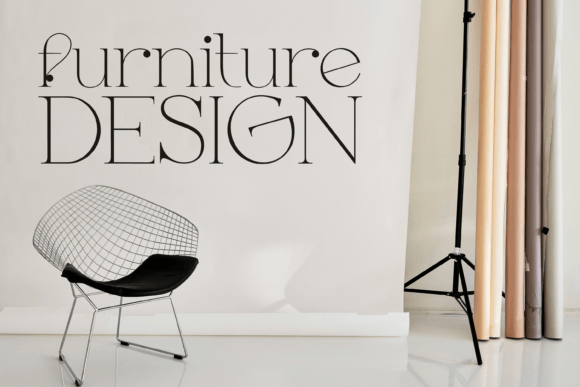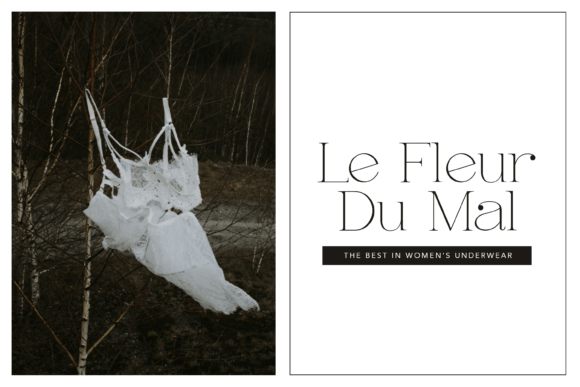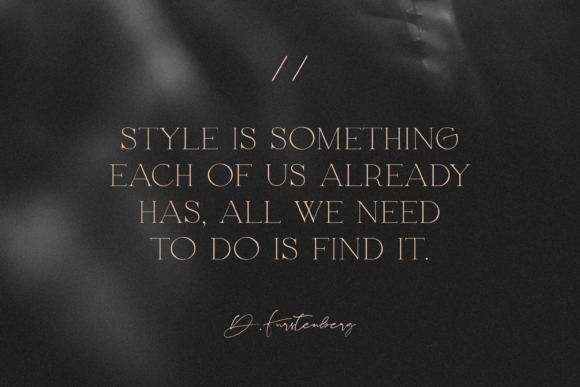
Introduction to Feona Serif Font
Imagine you’re brainstorming ideas for a high-end wedding invitation, and you stumble upon the perfect font to capture the essence of the occasion. For designers, finding that perfect font can make all the difference in a creative project. The Feona Serif Font is one such treasure that brings a touch of elegance and sophistication to any design.
With its soft, feminine style and modern feel, the Feona Serif Font is perfect for luxury branding, logos, and even free download templates. Its versatility and high-quality design make it a valuable resource for designers looking to elevate their work. Whether you’re working on a design project that requires a transparent background or need a design resource that exudes style and sophistication, the Feona Serif Font is sure to deliver.
Key Features of Feona Serif Font
- High-quality, professional font suitable for various creative projects, including logos, brochures, and business cards.
- Designed with a unique, elegant aesthetic, making it perfect for projects requiring a sophisticated touch.
Honest Review: Feona Serif Font
I recently stumbled upon the Feona Serif Font, and I must say, it’s been a game-changer for my creative projects. The font is available for free download, which is a major plus in my book.
One of the things that stands out about this font is its high quality. It’s incredibly crisp and clean, making it perfect for designs that require a lot of text. I’ve used it for everything from website headers to social media graphics, and it’s always delivered.
- High-quality design that’s perfect for text-heavy projects
⚠️ One limitation I’ve noticed is that the font can be a bit too formal for some projects. It’s perfect for corporate designs or academic papers, but it may not be the best choice for more playful or creative projects.
Overall, I’m really impressed with the Feona Serif Font. It’s a solid design resource that’s perfect for anyone looking for a high-quality, free font. I’ve already added it to my list of go-to fonts for future projects.
Feona Serif Font can also be used in PowerPoint and Word, making it a versatile design resource for presentations and documents. Its clean and elegant design makes it perfect for titles, headings, and body text.
Feona Serif Font is perfect for a variety of creative projects, including logos, brochures, business cards, and presentations. Its high-quality design and transparent background make it a great choice for designers looking for a professional and elegant font.